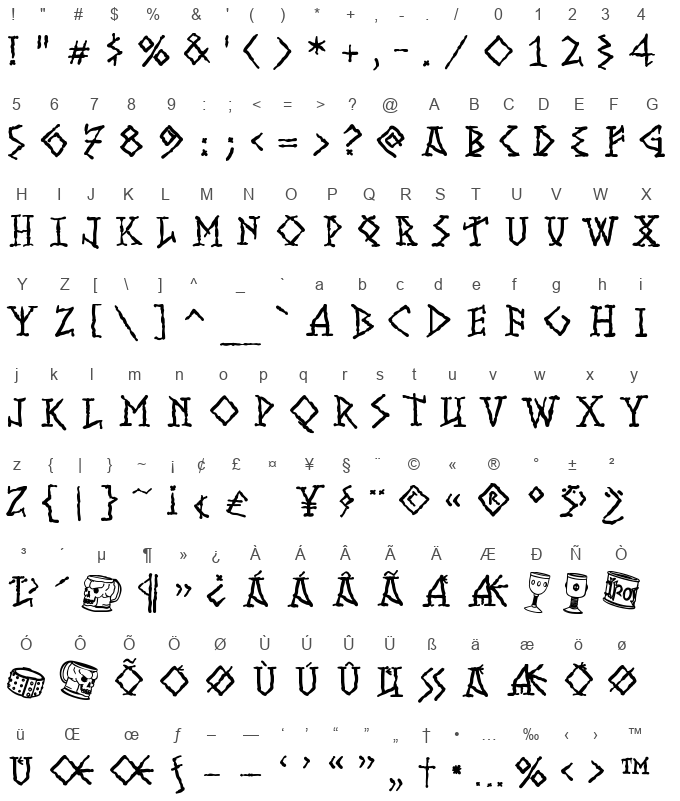
RunishMK by Manfred Klein is a unique font that draws inspiration from the ancient runes used by early Germanic tribes, particularly those known as the Elder Futhark. Manfred Klein, a prolific typographer known for his wide-ranging font collections, often infused historical and cultural elements into his designs, and RunishMK is a prime example of this approach.
The font captures the mystique and enigmatic qualities of runic inscriptions while making them accessible and usable in contemporary digital and print formats. The characters in RunishMK bear a striking resemblance to their historical counterparts, with each letter meticulously crafted to reflect the angular, linear style typical of runic alphabets. However, Klein has moderated these traits, ensuring that the text remains legible to modern audiences who may be unfamiliar with traditional rune shapes.
While maintaining a connection to its ancient roots, RunishMK also incorporates a touch of modernity, making it versatile enough for a range of design projects. From fantasy novels and historical publications to thematic branding and creative artwork, this font offers a unique blend of the old and the new. It provides designers and artists with an evocative typographic tool that can add depth and character to any project.
Overall, RunishMK stands out as a testament to Manfred Klein's talent for creating fonts that are not only visually engaging but also rich in cultural and historical context. It's a font that invites storytellers, designers, and historians alike to explore the fascinating world of runic symbols, bridging millennia through the power of typography.